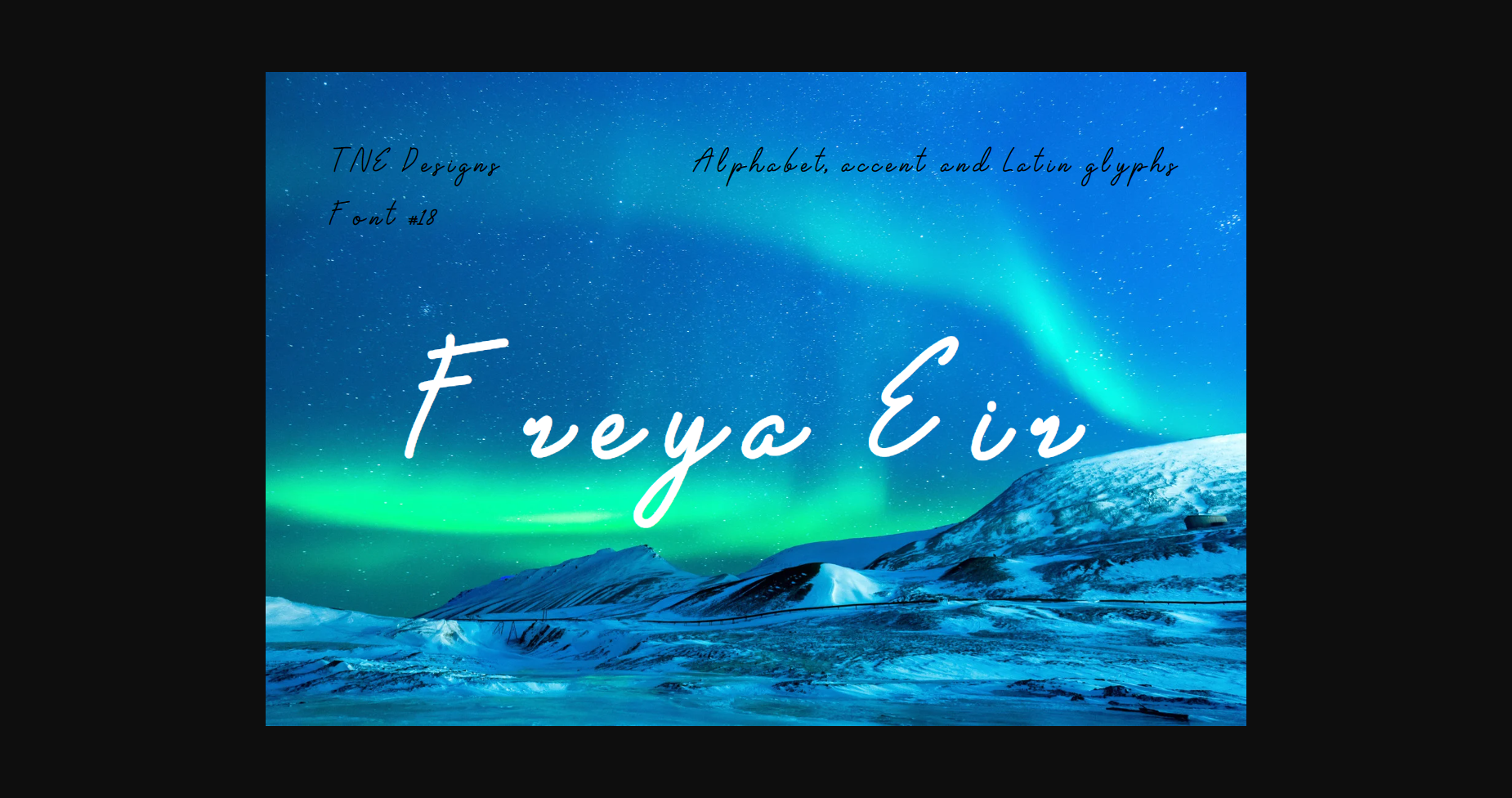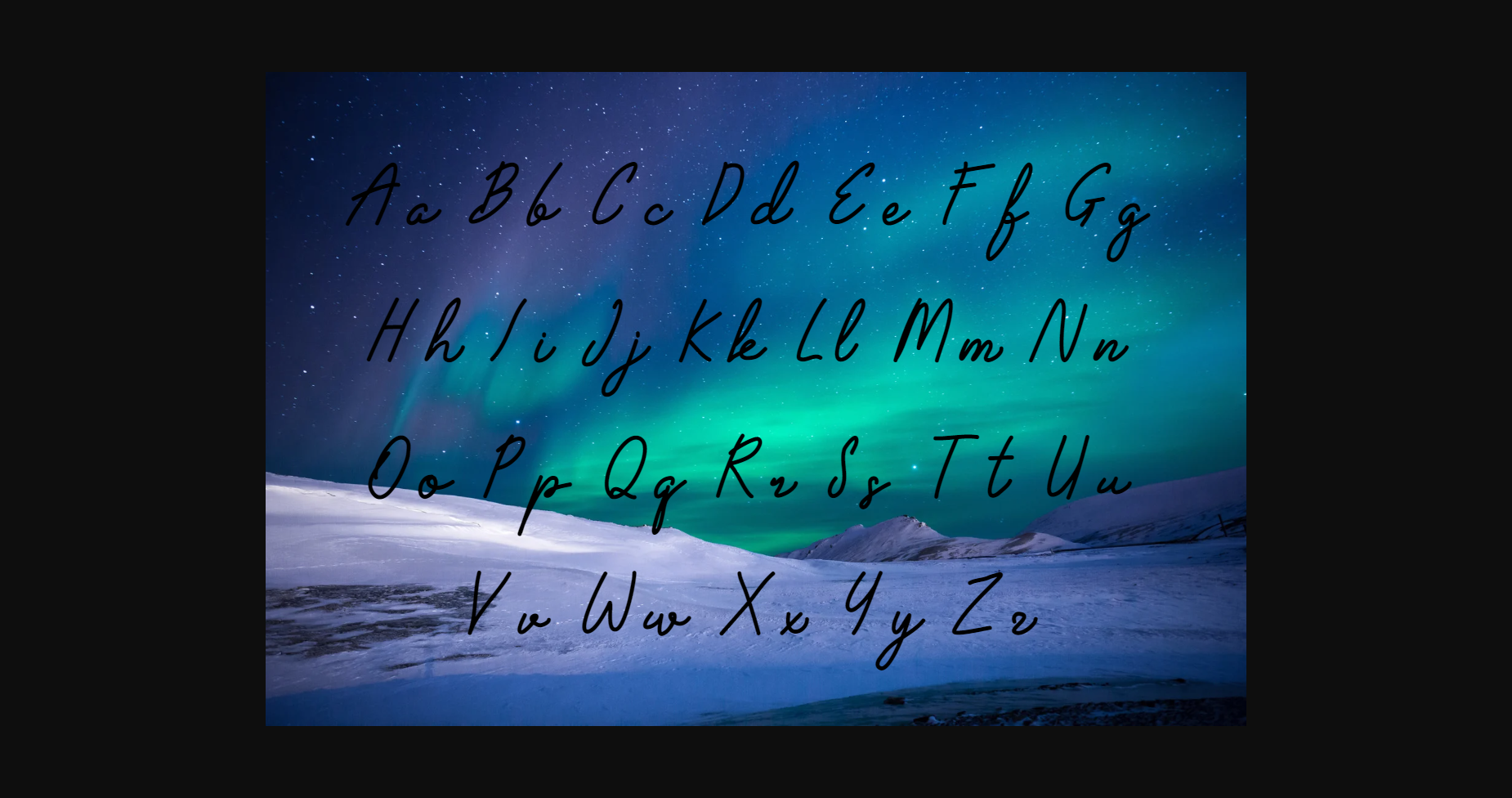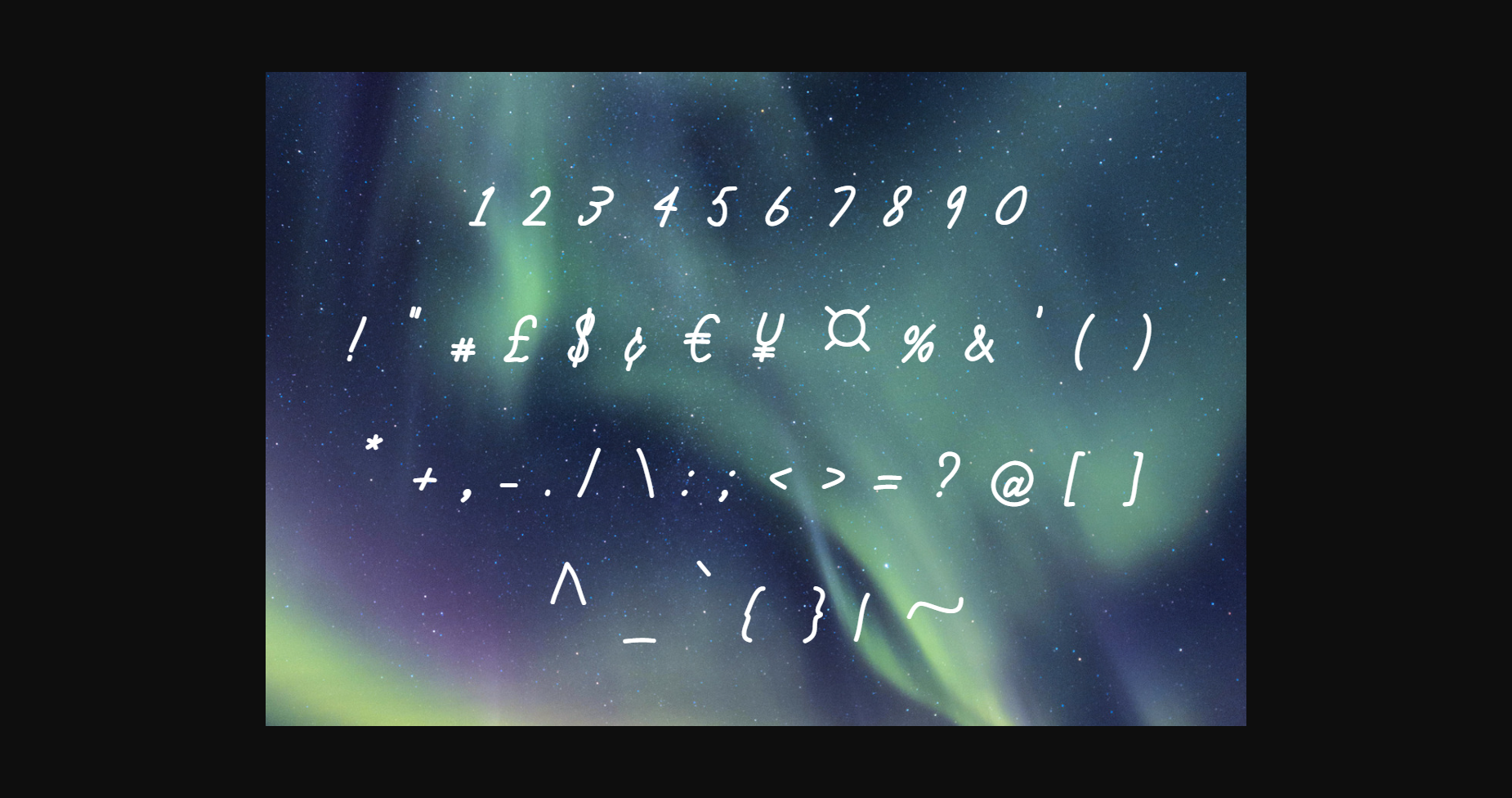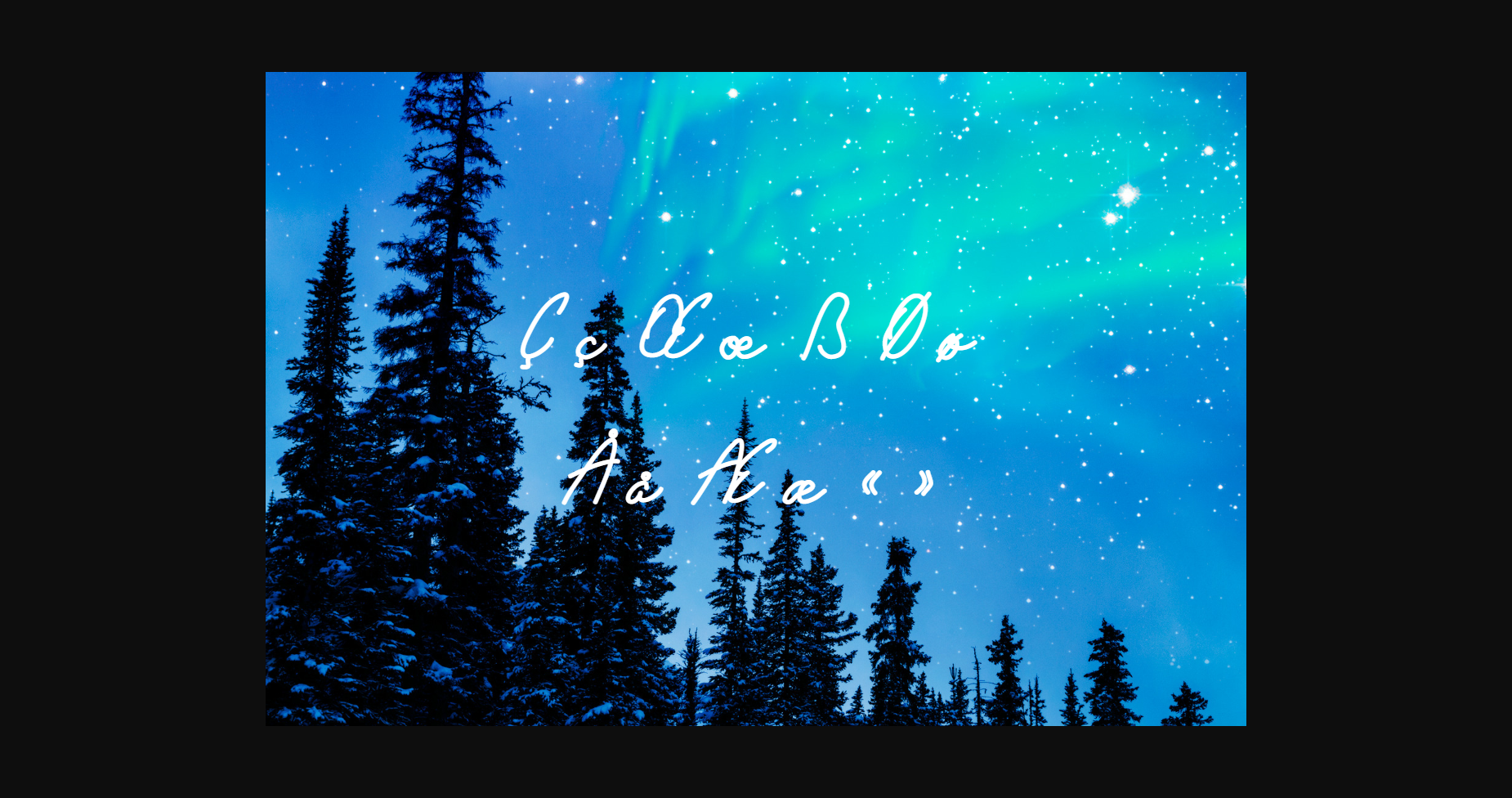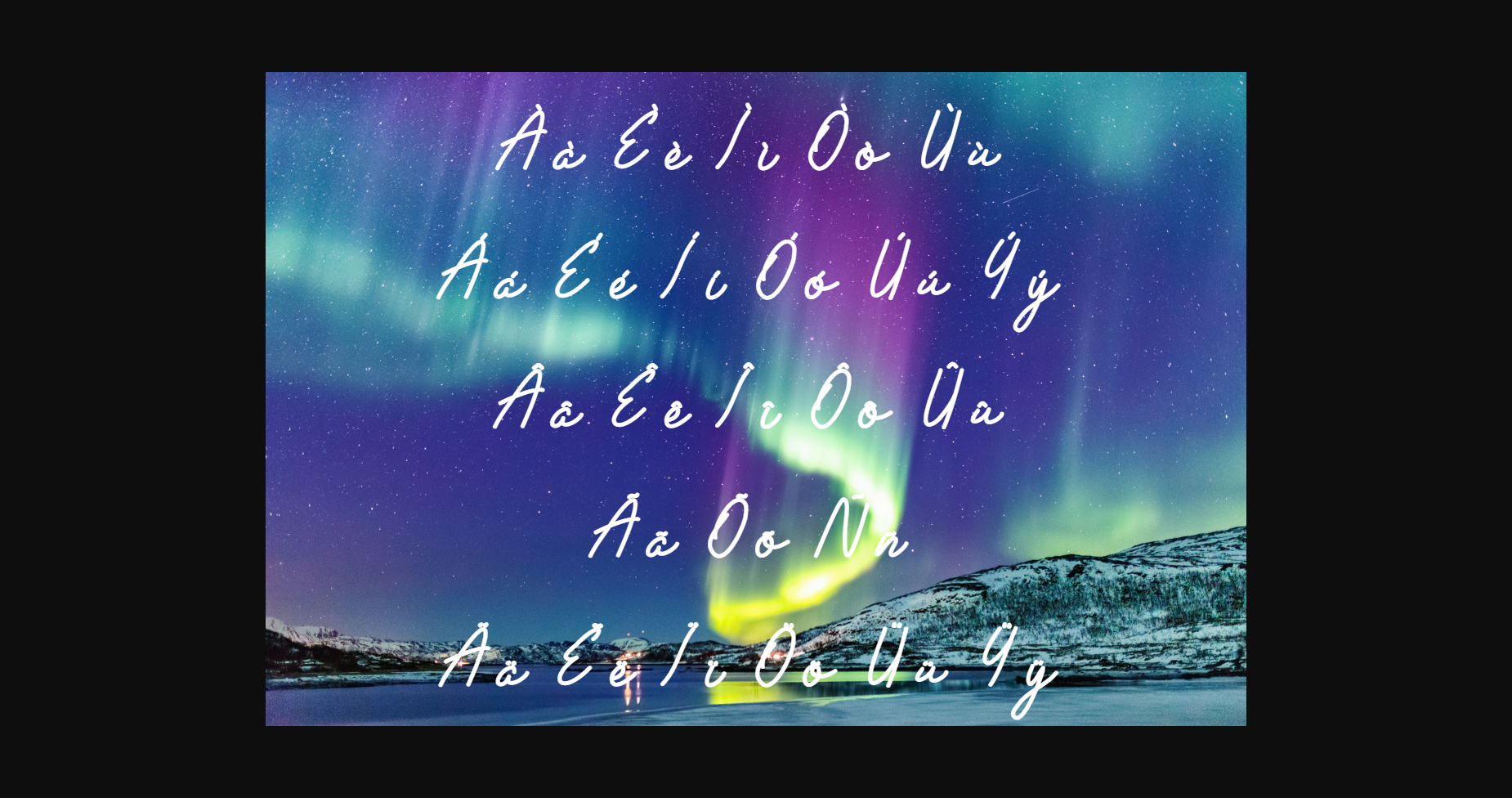
HomeSans Serif FontsFreya Eir Font Sans Serif Fonts Freya Eir Font FacebookXPinterestWhatsApp 1 of 7 ... Freya Eir Font Poster 2... Freya Eir Font Poster 3... Freya Eir Font Poster 4... Freya Eir Font Poster 5... Freya Eir Font Poster 6... Freya Eir Font Poster 7... About Freya Eir Font Freya Eir is a charming and delicate handwritten font with a natural feel. The thin and flowing letterforms evoke a casual and friendly atmosphere, perfect for personal projects or informal designs. DOWNLOAD NOW People also explored Simple Beauty Font Kachine Font Stella Font Genor Font Easter Font Hummingbird Britania Letter Font Golden Clouds Font Belligart Font 333 0 TagsFreya Eir Font Previous articleChic FontNext articleHollium Font LEAVE A REPLY Cancel reply Comment: Please enter your comment! Name:* Please enter your name here Email:* You have entered an incorrect email address! Please enter your email address here Website: Save my name, email, and website in this browser for the next time I comment. Personal Use Free Alligator Font Personal Use Free Read more about this font BD Fluke Personal Use Free Read more about this font Uchiyama Personal Use Free Read more about this font Wallabys Junior Personal Use Free Read more about this font BLOG Free Fonts Risk: Why Free Fonts Can Be Dangerous for Designers Free Fonts Risk: Why Free Fonts Can Be Dangerous for Designers Using free fonts is a common practice in web and graphic design. However, the... Best Fonts for YouTube Videos: Make Your Thumbnails Stand Out Transform Your Website: Elevate Your Typography with 7 Best Web Font Generators Top 10 Handwritten Fonts That Elevate Your Designs